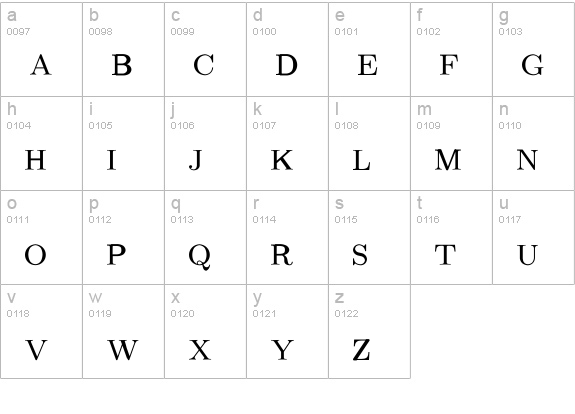
CM_RomanCaps Regular Font Details
CM_RomanCaps Regular is the standard, neutral variant in the CM_RomanCaps typeface family \xE2\x80\x94 well suited to general body text, paragraphs, and standard typographic work.
CM_RomanCaps Regular font is a classic and elegant typeface that exudes sophistication and timelessness. With its clean lines and traditional Roman capitals style, this font is perfect for adding a touch of refinement to any project. Whether you are designing a logo, creating a poster, or working on a branding project, CM_RomanCaps Regular font will elevate your design with its timeless appeal. The best part is that CM_RomanCaps Regular font is completely free to download at FontsMarket.com. This means you can easily access this high-quality font without any cost, making it a valuable addition to your design toolkit. So why wait? Download CM_RomanCaps Regular font today and enhance your projects with its classic beauty and elegance.